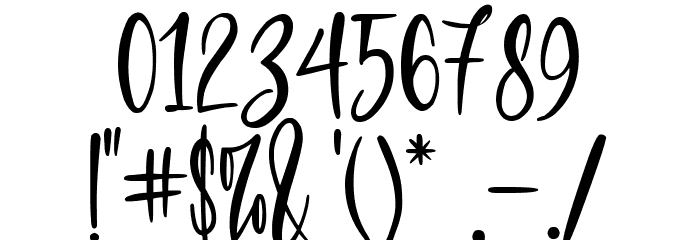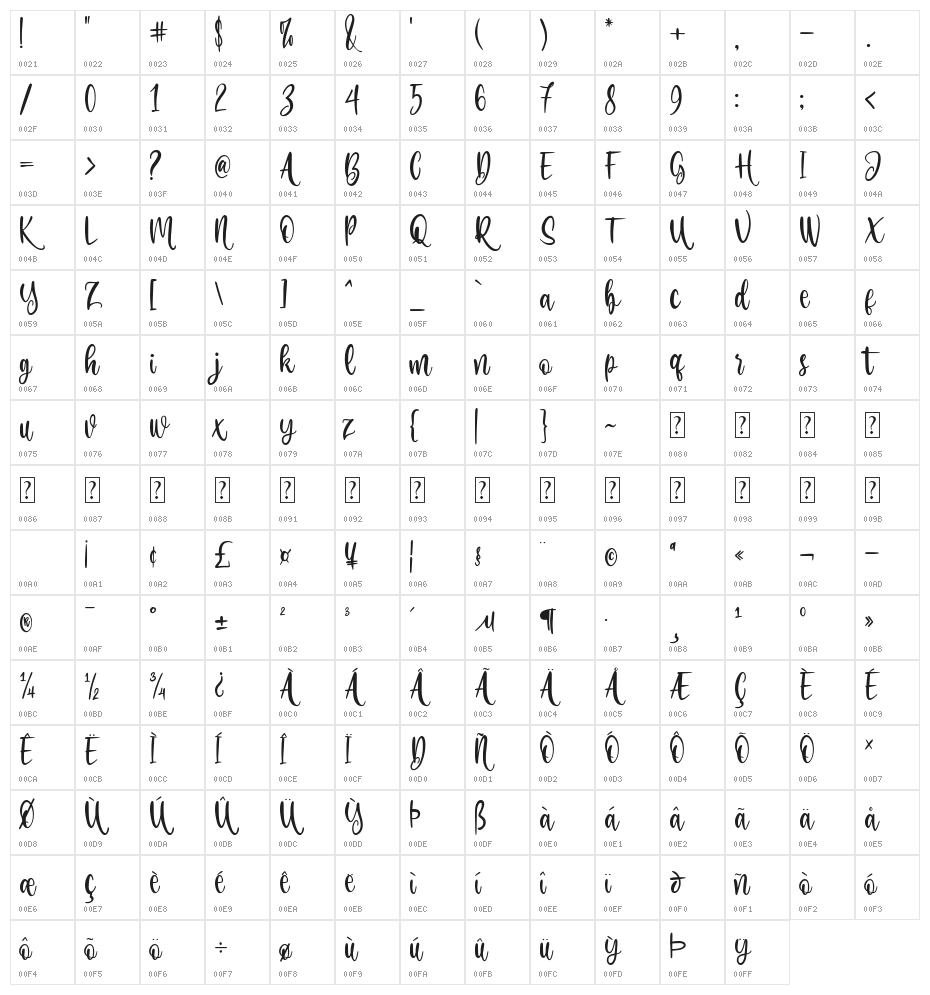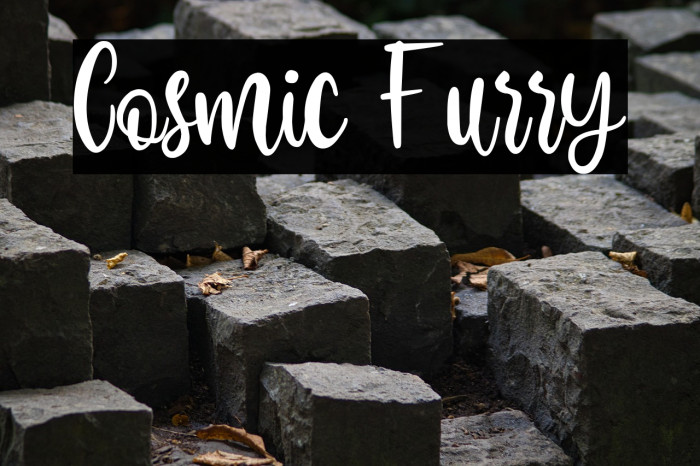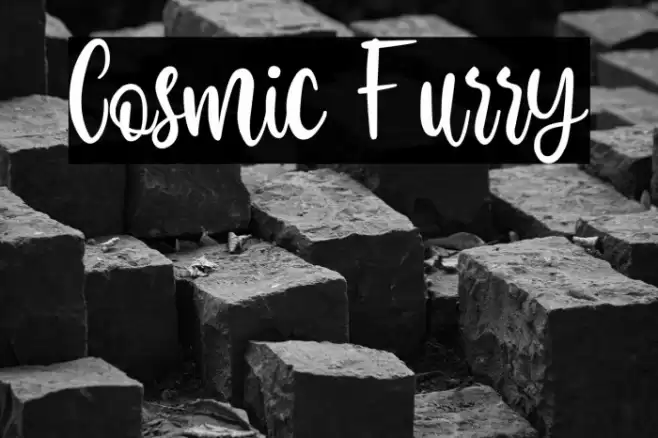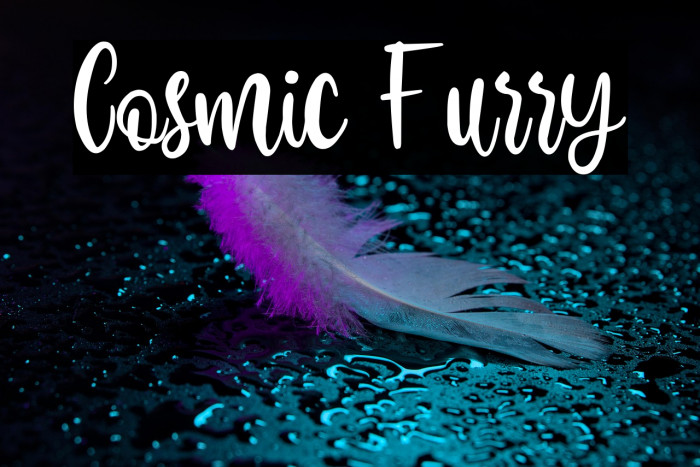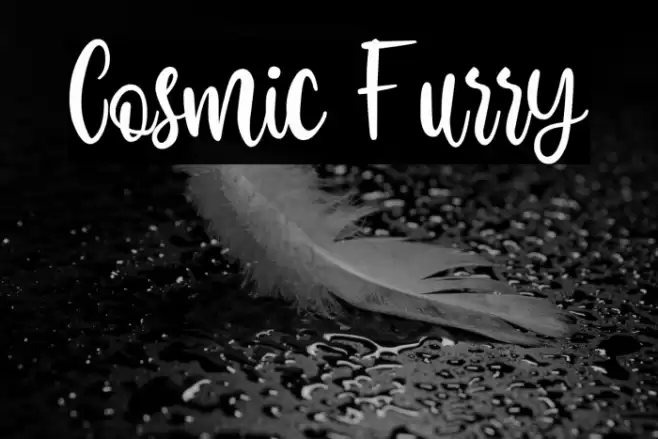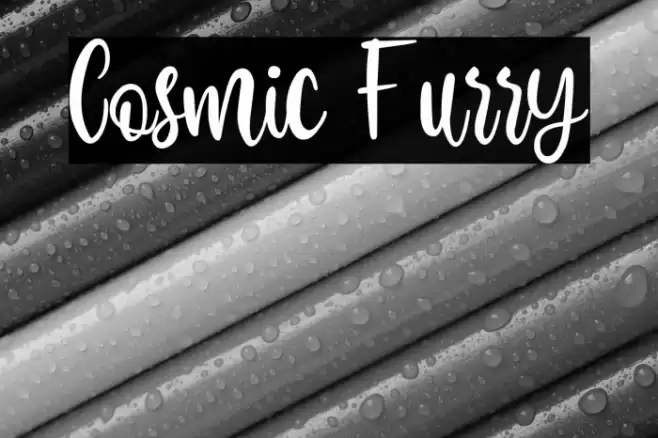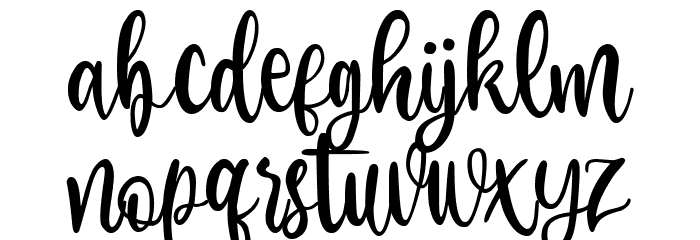
Cosmic Furry Font
Cosmic Furry Description
This font features a playful and whimsical script style, characterized by its flowing, cursive letters. The strokes are smooth and rounded, giving it a friendly and approachable appearance. The uppercase letters are bold and slightly exaggerated, while the lowercase letters maintain a consistent flow, enhancing readability. The numbers and special characters are designed to match the overall style, with a touch of creativity in their curves and loops. This font is perfect for projects that require a personal and informal touch, such as invitations, greeting cards, or playful branding.